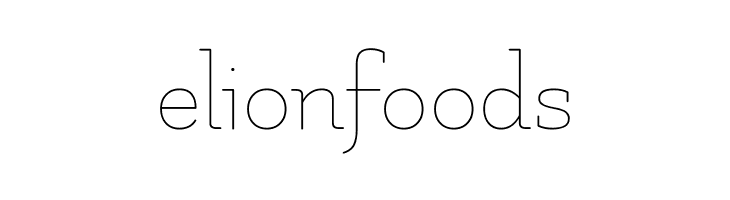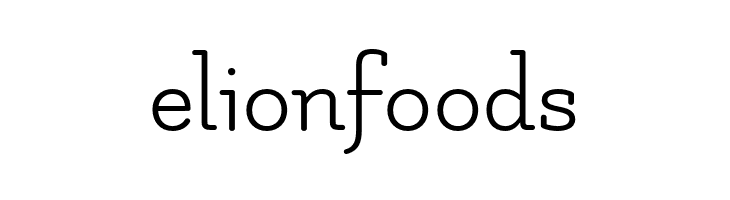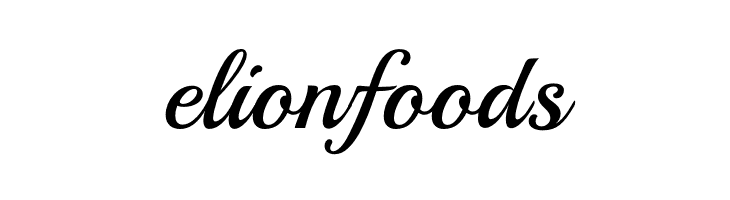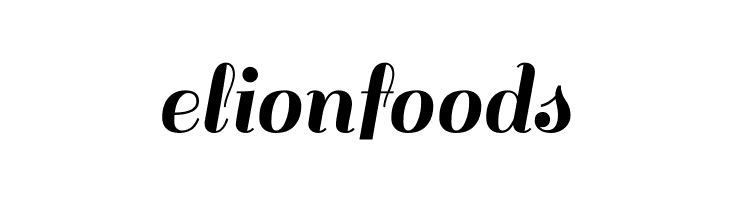
A classic serif font with elegant small caps and refined detailing.
A bold, thick-stroked font with a modern and playful style.
A bold, thick font with a strong, modern presence.
A playful, bold font with rounded, energetic characters.
A modern, clean font with excellent readability and elegant curvature.
A thin, elegant font with a modern and sophisticated style.
A modern, elegant font with subtle curvature and balanced proportions.
A clean, modern font with a playful touch and consistent stroke width.
A lively and flowing script font with elegant, connected characters.
An elegant script font with ornate uppercase and bold lowercase letters.